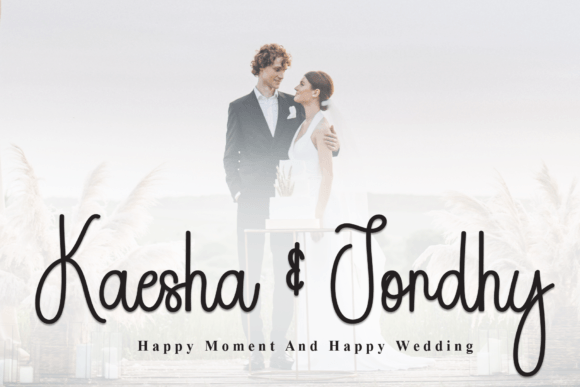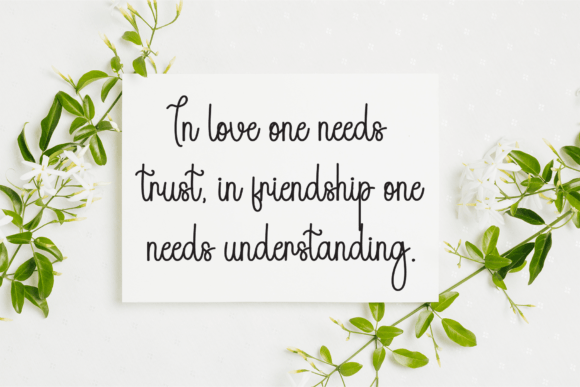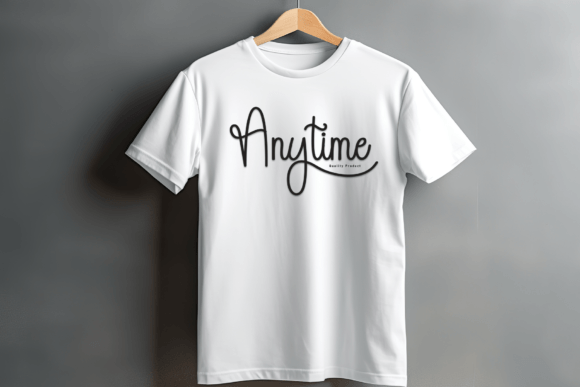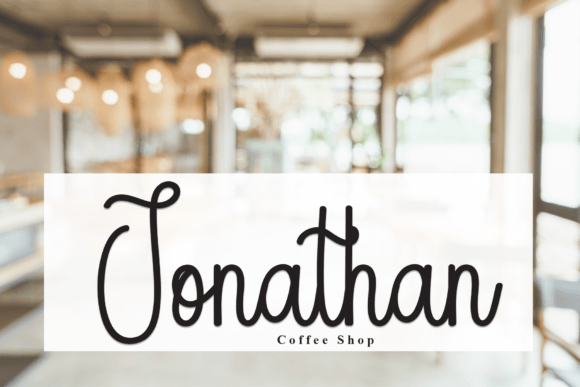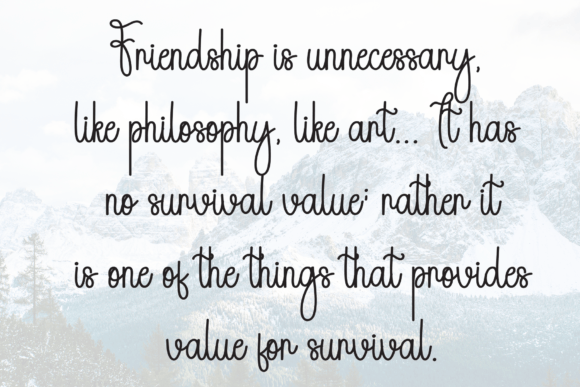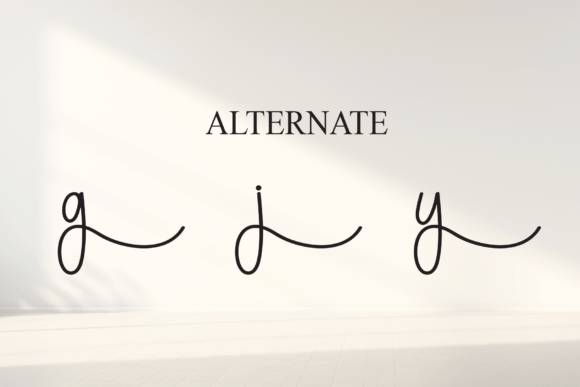
Introducing Angelina Font: The Ultimate Display Font for Joyful Designs
Are you tired of using the same old fonts for your designs? Look no further! We’re thrilled to introduce Angelina Font, a delightful handwritten display font that’s sure to bring a smile to your face. Crafted with sweetness and playfulness in mind, this font is perfect for adding a touch of joy to your wedding invitations, cards, and other graphic designs.
A Font that Captures the Essence of Fun
Angelina Font is designed to capture the essence of fun and playfulness. Its charming design is sure to make your designs stand out from the crowd. Whether you’re a designer, crafter, or DIY enthusiast, this font is perfect for anyone looking to add a splash of joy and excitement to their work. With Angelina Font, every letter springs to life, casting sparkling smiles on any design canvas.
Wedding invitations and cards are a great way to showcase the beauty of Angelina Font. Its adorable and friendly design makes it perfect for couples who want to add a personal touch to their special day. Imagine sending out wedding invitations that set the tone for a joyful and playful celebration. With Angelina Font, you can create designs that are both elegant and fun.
Angelina Font is a versatile display font that can be used for a wide range of design projects. Here are some ideas to get you started:
- Wedding invitations and cards
- Party invitations and decorations
What Makes Angelina Font Special?
So, what makes Angelina Font so special? Here are a few features that set it apart:
- Handwritten with love: Angelina Font is a handwritten display font that’s been crafted with love and care. Its unique design makes it perfect for adding a personal touch to your designs.
- Playful and fun: This font is designed to bring a smile to your face. Its playful design makes it perfect for adding a touch of joy to your designs.
- Versatile: Angelina Font can be used for a wide range of design projects, from wedding invitations to social media graphics.
Get Ready to Fall in Love with Angelina Font
Tips for Using Angelina Font
Here are a few tips for using Angelina Font:
- Pair it with other fonts: Angelina Font pairs well with other fonts, such as serif and sans-serif fonts. Experiment with different combinations to find the perfect look for your design.
- Use it for headings: This font is perfect for headings and titles. Use it to add a touch of joy and excitement to your designs.
- Experiment with colors: Angelina Font looks great in a variety of colors. Experiment with different colors to find the perfect look for your design.
In conclusion, Angelina Font is a delightful handwritten display font that’s perfect for adding a touch of joy to your designs. Its playful design and charming character make it a must-have for designers and crafters. Download Angelina Font today and start creating joyful designs that will leave a lasting impression.